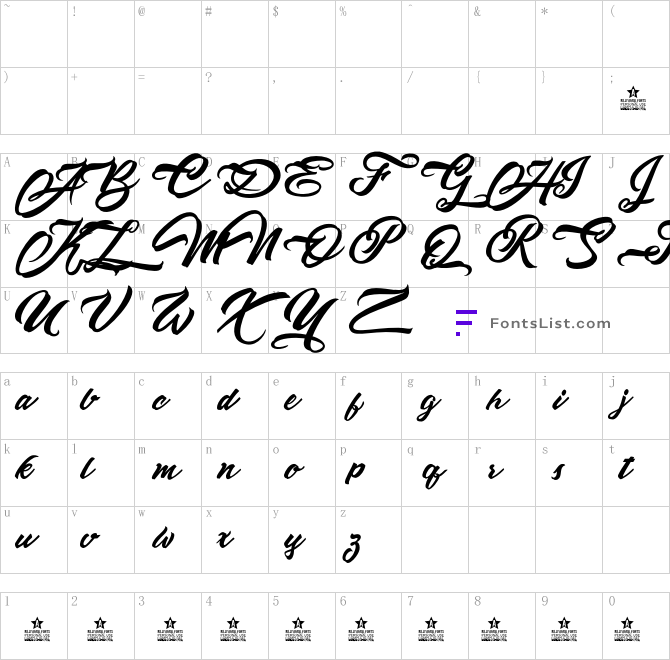
- Font Name:Altamonte Personal Use
Altamonte-Personal-Use.otf is a very beautiful artistic font, Altamonte-Personal-Use.otf is widely used in the design and printing of various books and pictures,Altamonte-Personal-Use.otf has a strong visual impact,Altamonte-Personal-Use.otf is a commonly used font in newspapers, magazines and books, and is used in posters, e-commerce Poster design, store design, logo design, font design and other fields.Altamonte-Personal-Use.